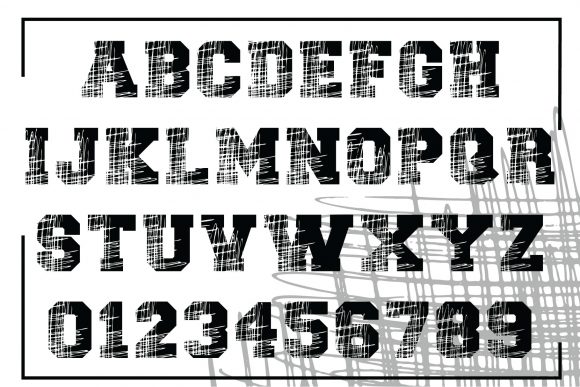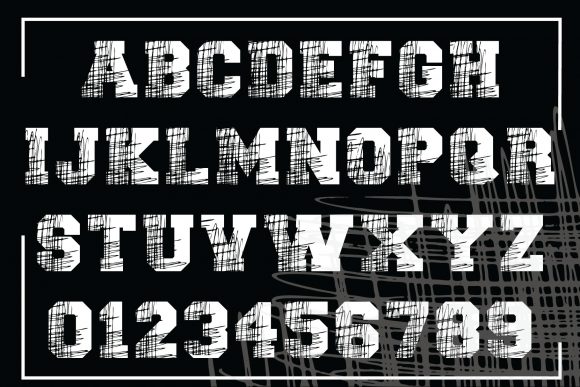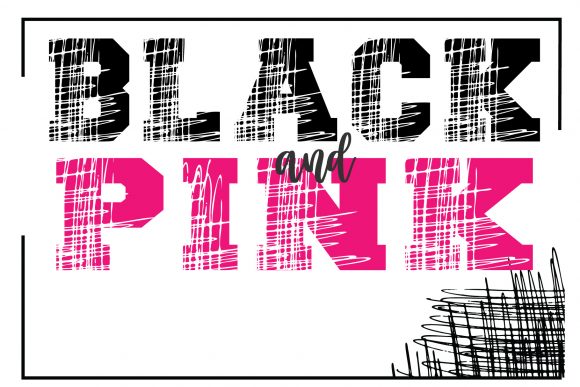
The Power of Black Pen Font: Elevate Your Designs with Texture and Personality
An Honest Review of Black Pen Font
- ✨ Unique texture: The rough, hand-drawn texture of Black Pen Font adds a level of authenticity to any design.
- ✅ High legibility: Despite its chunky appearance, the font remains clear and easy to read, even at smaller sizes.
- 💥 Versatility: Black Pen Font works surprisingly well for both digital and print designs, from social media graphics to posters and flyers.
While Black Pen Font is an amazing addition to any design, there are a few things to keep in mind:
- ⚠️ Not suitable for body text: Due to its textured nature and chunky appearance, Black Pen Font is best used for headlines or titles.
- 🤔 Limited font pairing options: While Black Pen Font can be paired with a variety of fonts, it’s best to stick with simple, sans-serif fonts to avoid visual overload.
A Practical Guide to Using Black Pen Font
The Designer Inspiration Behind Black Pen Font
Black Pen Font was inspired by the classic pen-and-paper look, with a modern twist. The font’s creator wanted to capture the feeling of writing with a black pen on textured paper, and the result is a font that’s both nostalgic and modern.
Q: What type of designs is Black Pen Font best suited for?
A: Black Pen Font is perfect for designs that need a bold, eye-catching font, such as posters, flyers, social media graphics, and branding materials.
Q: Is Black Pen Font available in different weights or styles?
A: Currently, Black Pen Font is available in a single weight, but its texture and stylistic alternates provide plenty of variation.
Q: Can I use Black Pen Font for digital and print designs?
A: Yes, Black Pen Font works well for both digital and print designs, but be sure to adjust the font size and color accordingly.